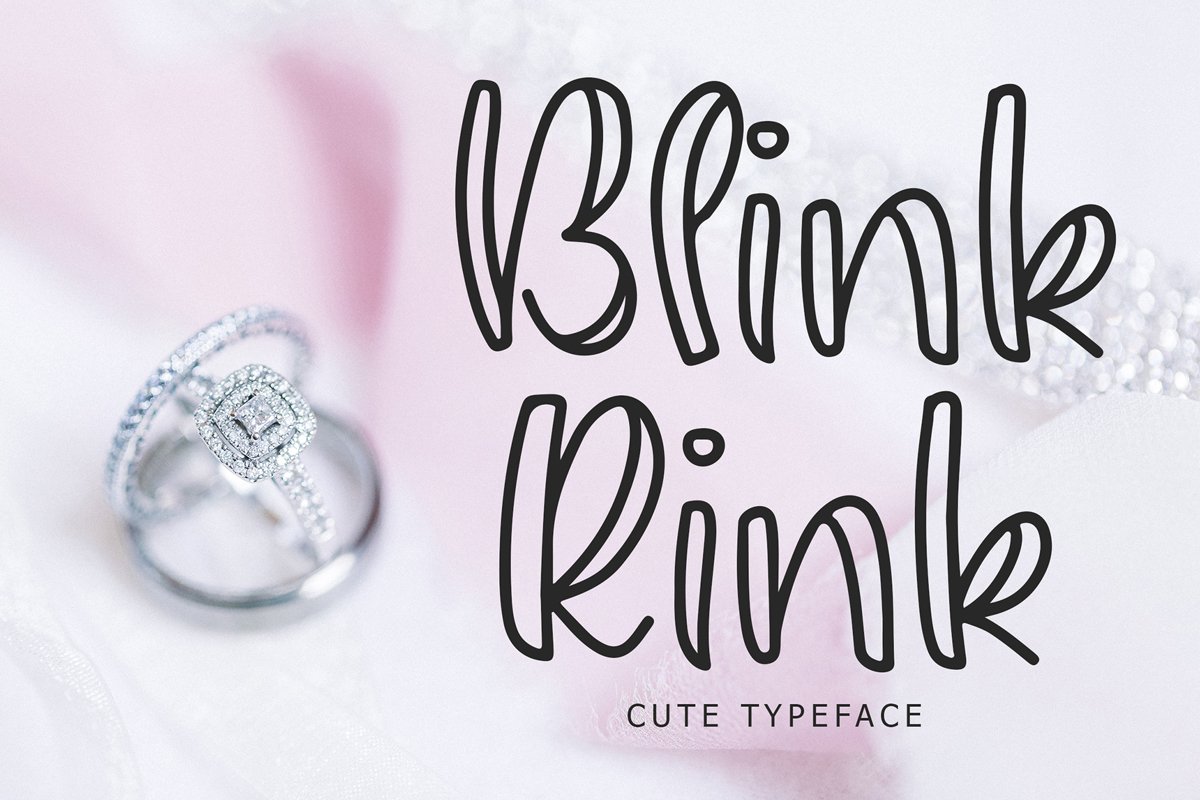
Blink Rink Cute Typeface
Blink Rink font perfect for branding projects, logo, book cover design, tshirt designs, social media posts, advertisements, product packaging, product designs, label, watermark, invitation, stationery and any projectsWhat's Included :
Blink Rink Cute Typeface